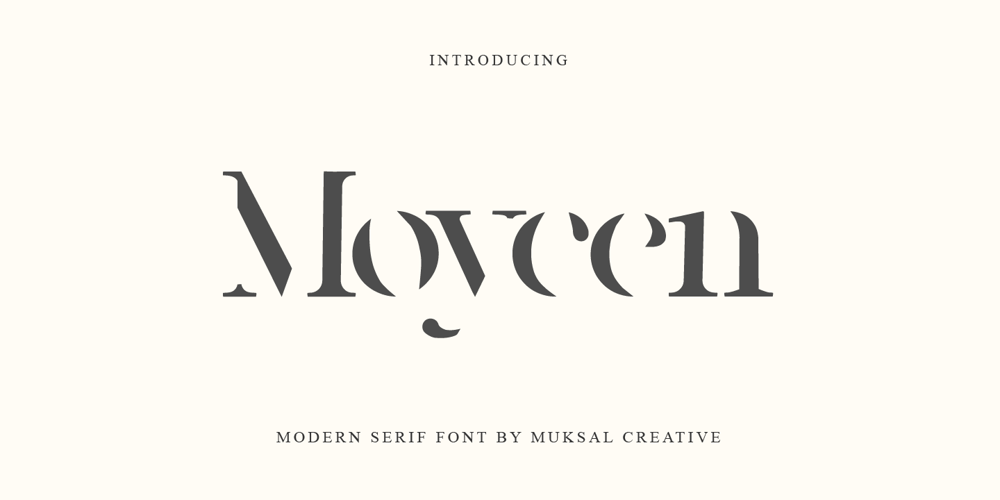
Moycen Font Family was designed by Muksalmina and published by Muksal Creatives. Moycen contains 1 styles and family package options. Introducing Moycen font is the perfect blend between bold, modern and feminine. It’s strong yet soft, urban and high fashion. The hard lines with subtle rounded edges gives it a perfect mix of contemporary typography and classic design. Versatile is an understatement.